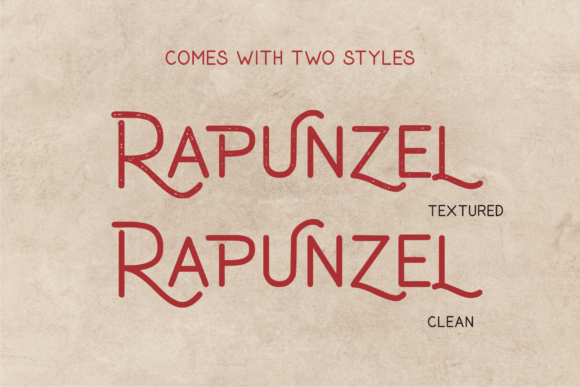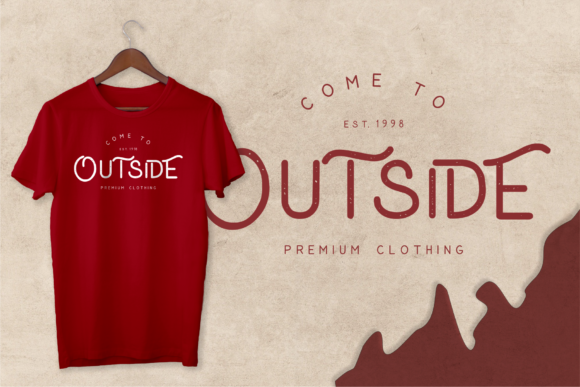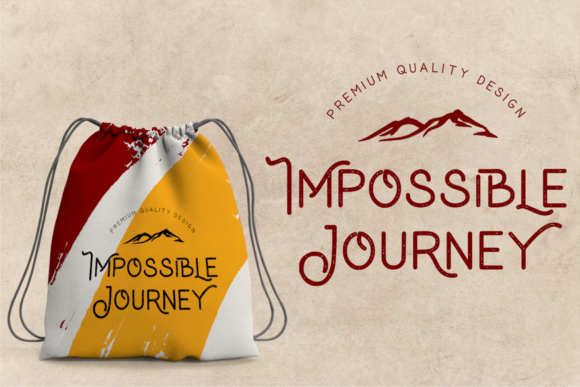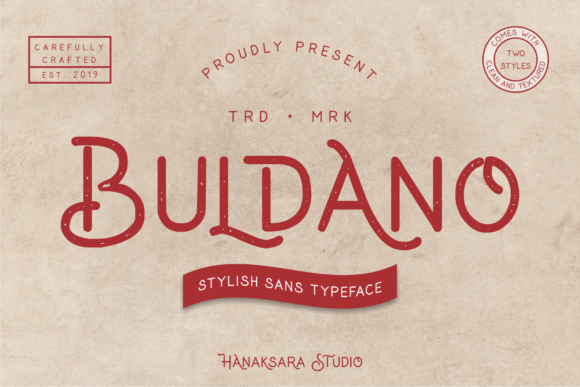
Introduction to Buldano Font
Buldano is a stylish sans serif font.
It will elevate a wide range of design projects to the highest level, be it branding, headings, wedding designs, invitations, signatures, logos, labels, and much more .
Key Features of Buldano Font